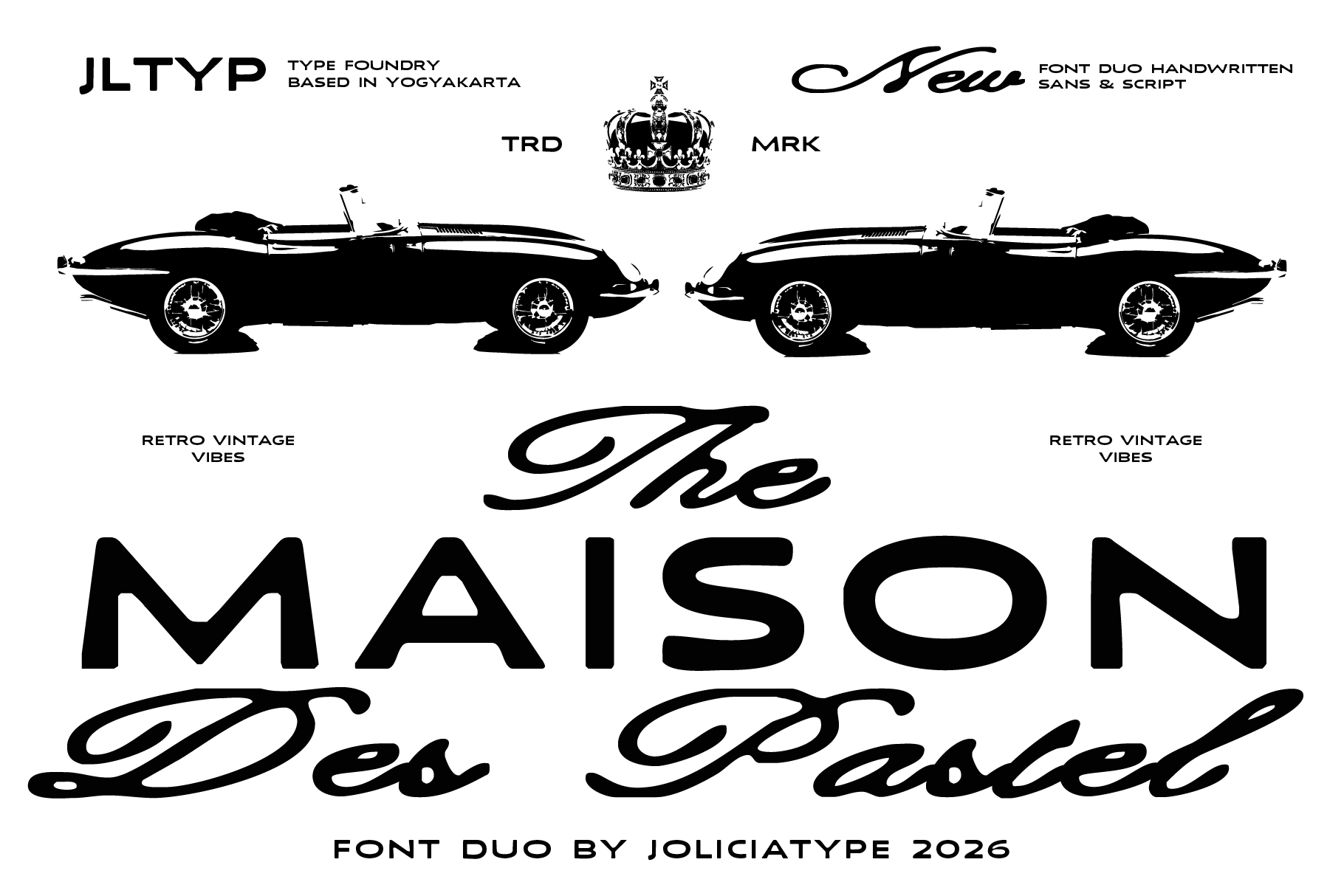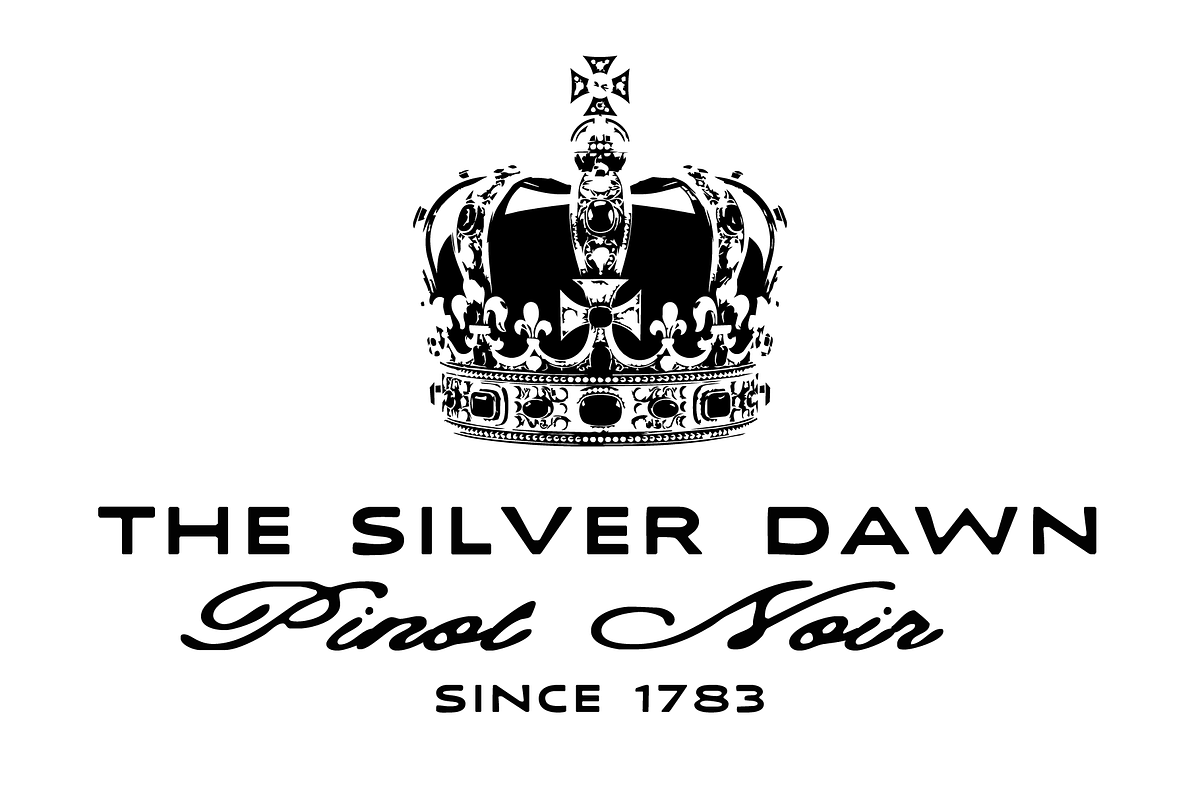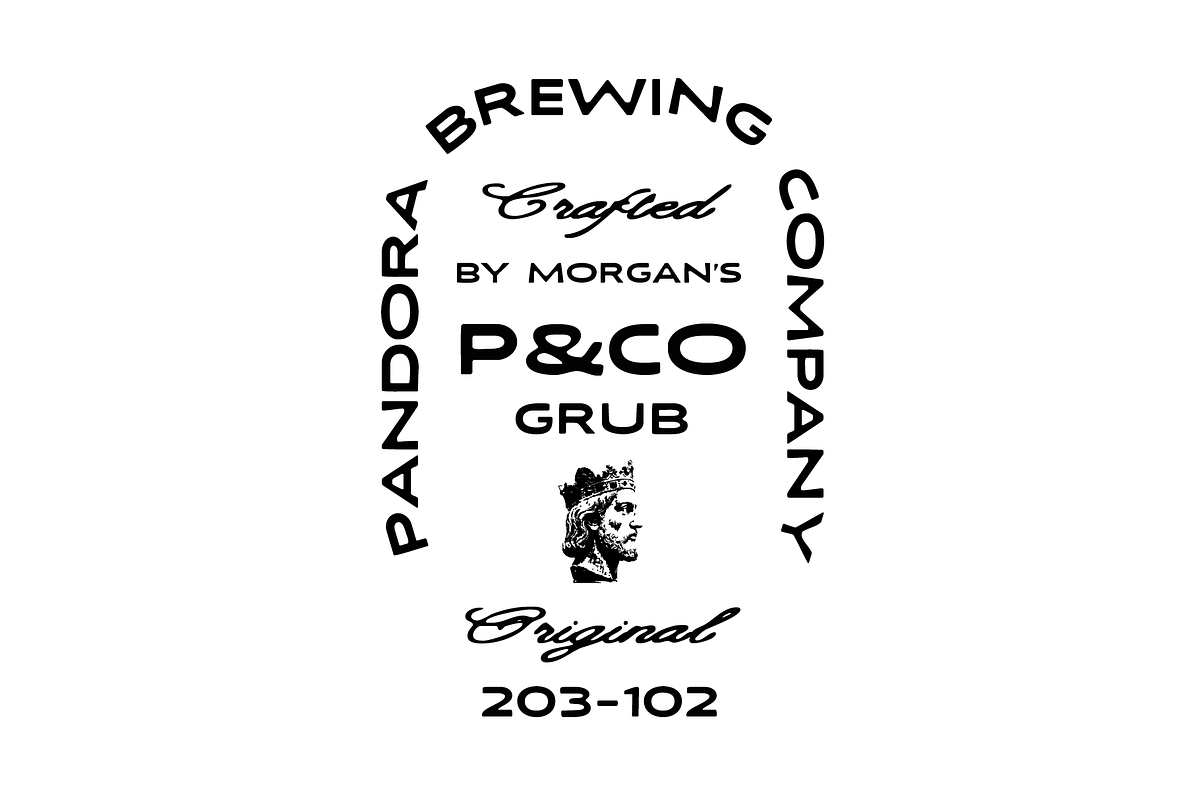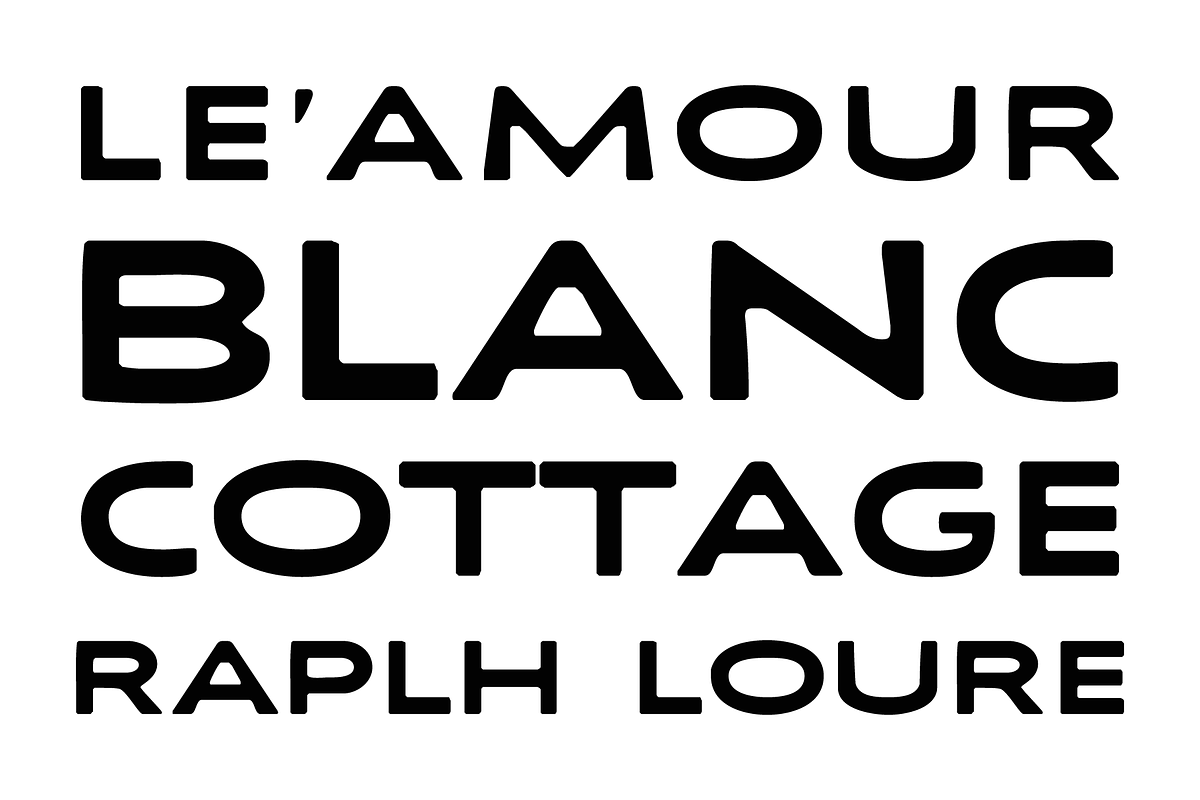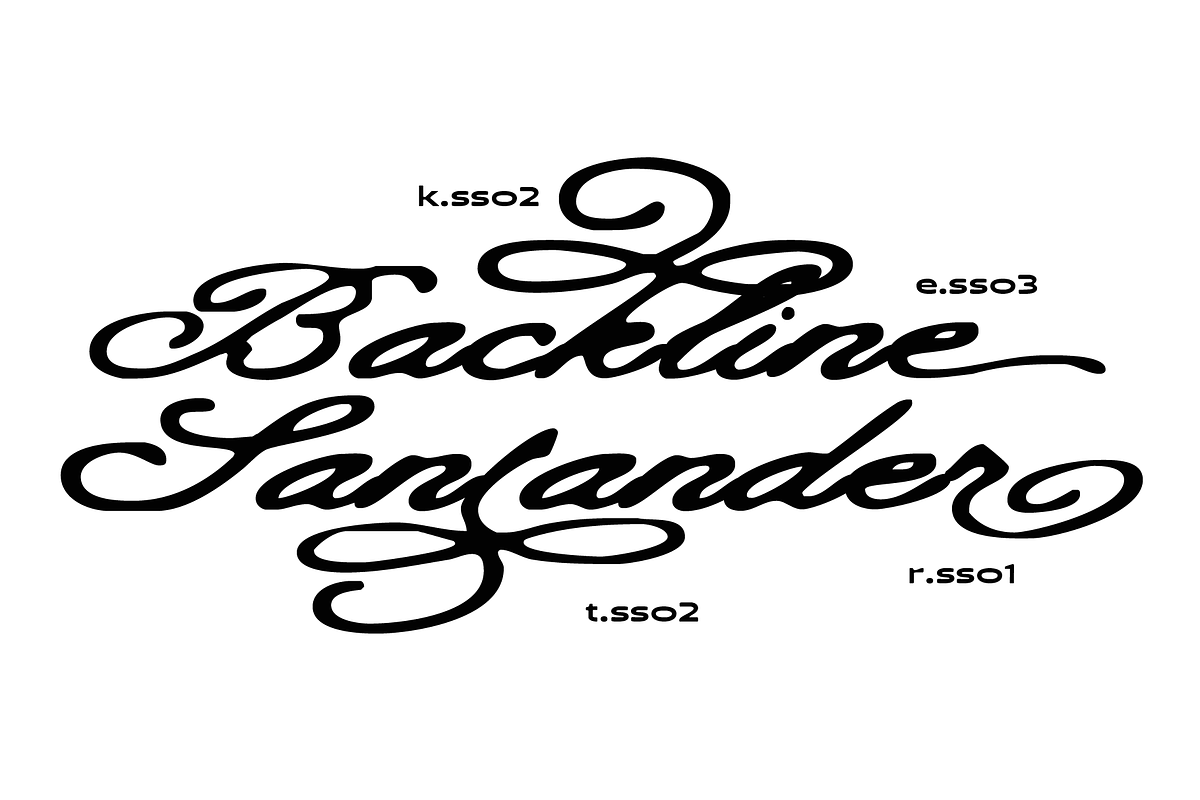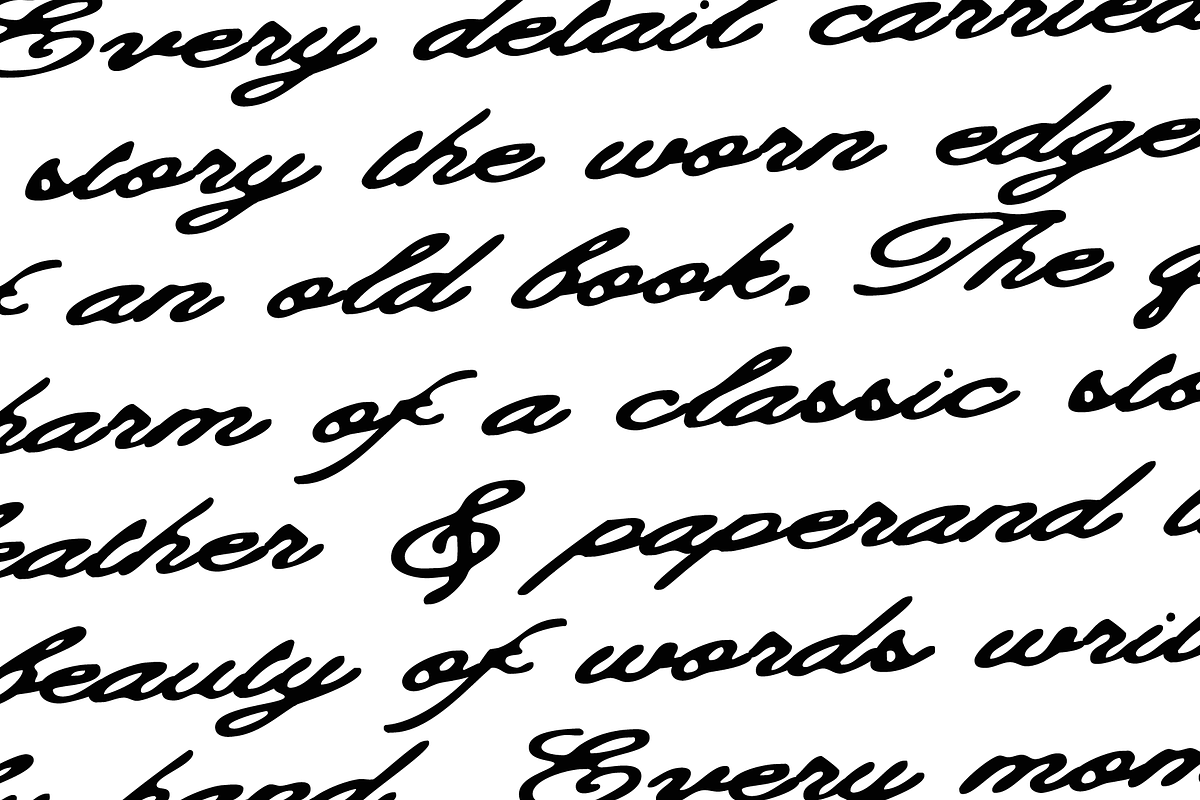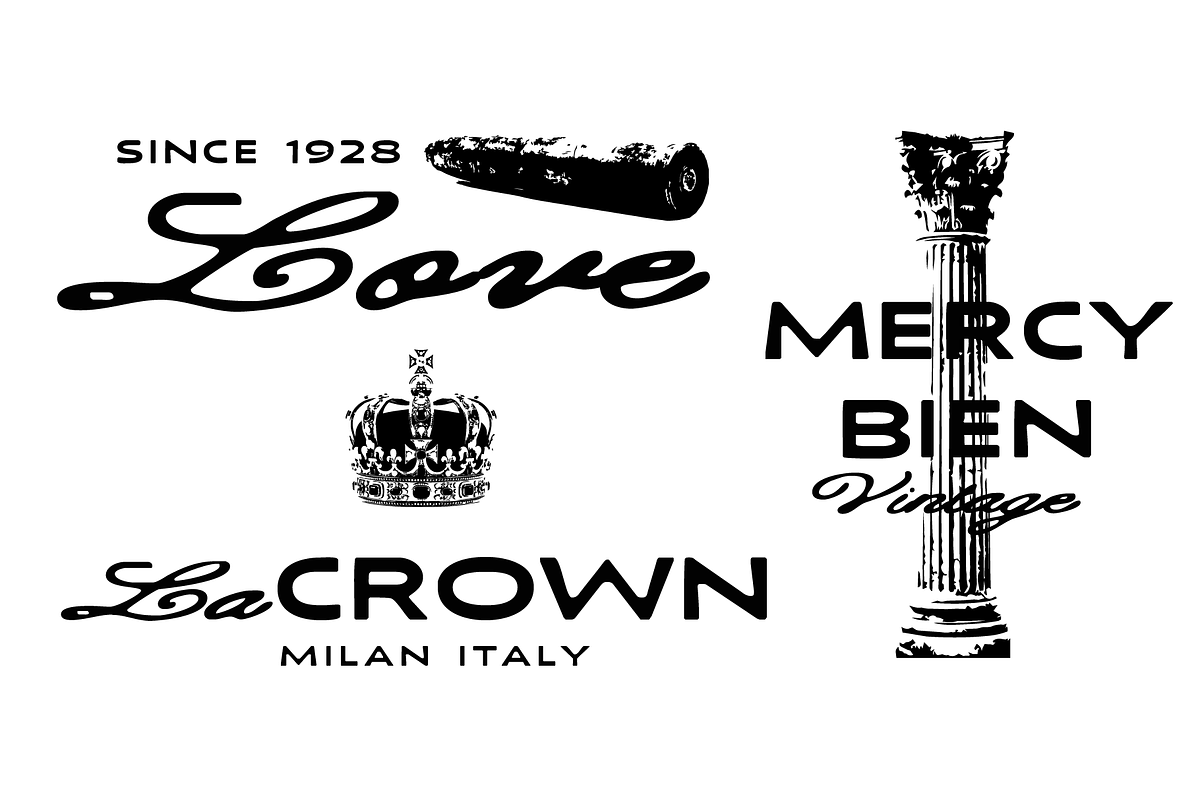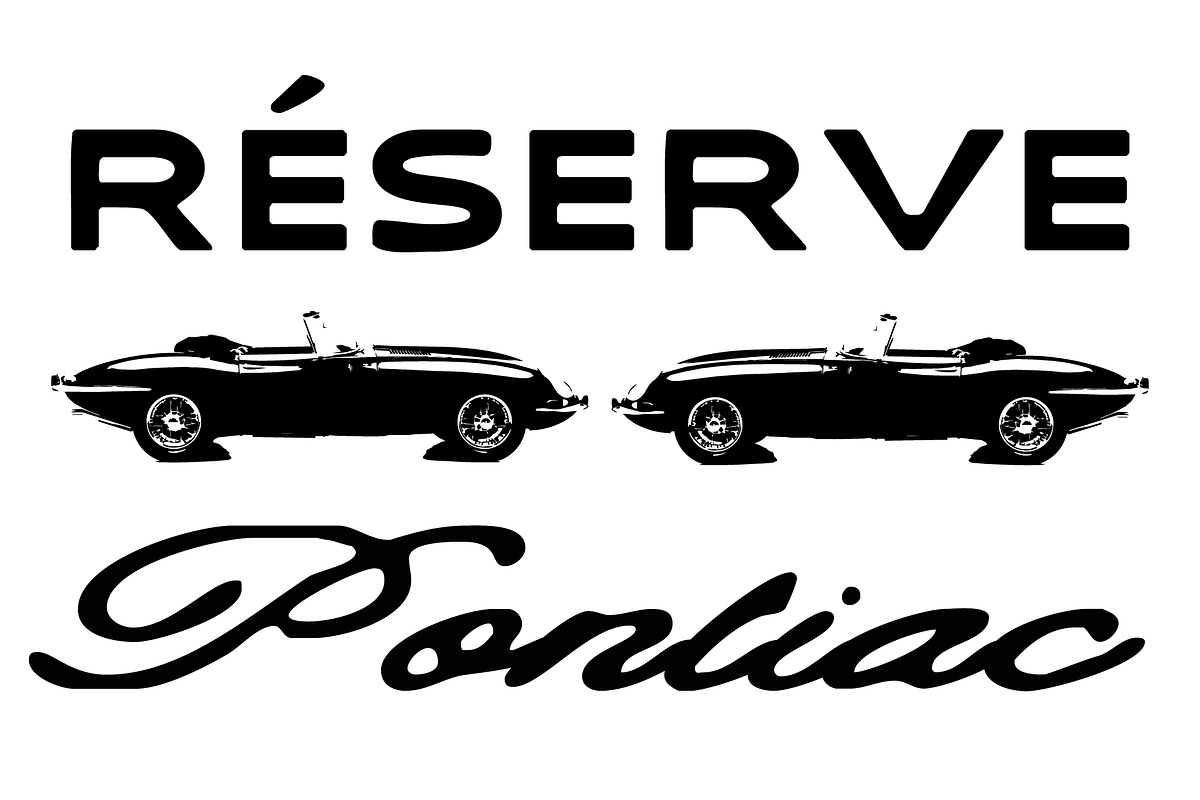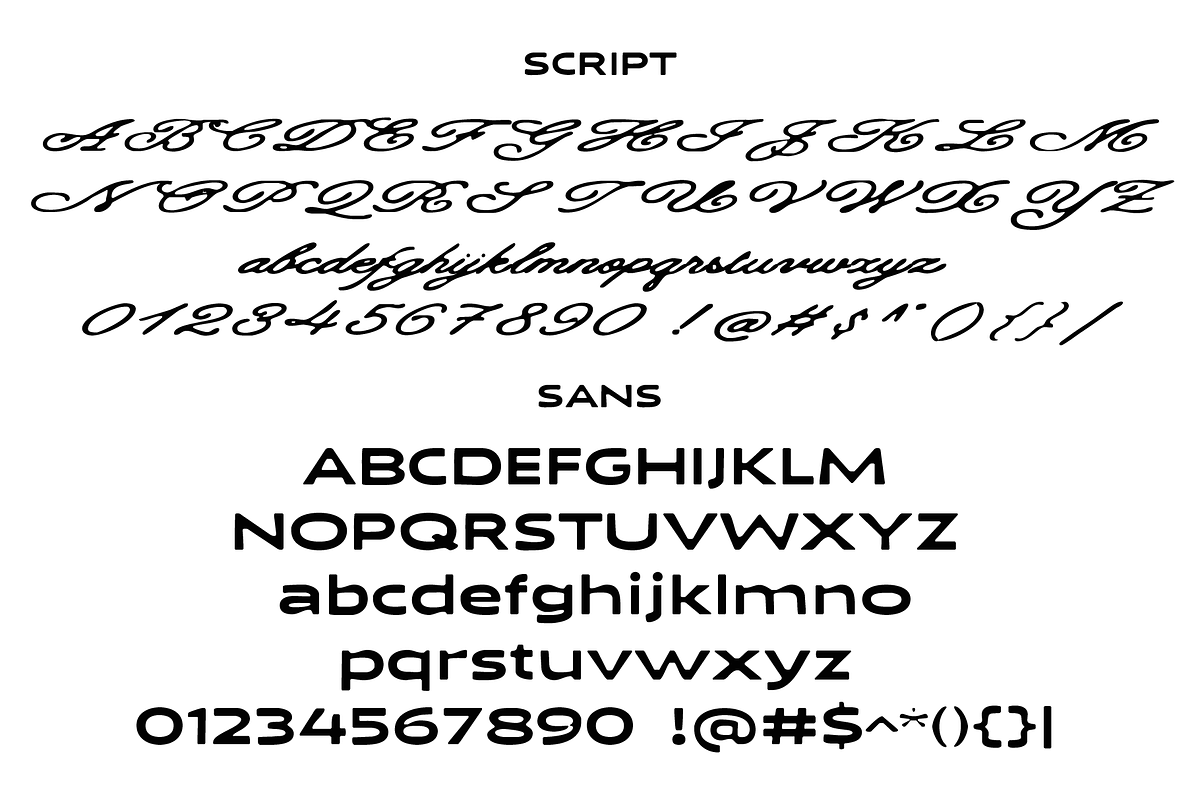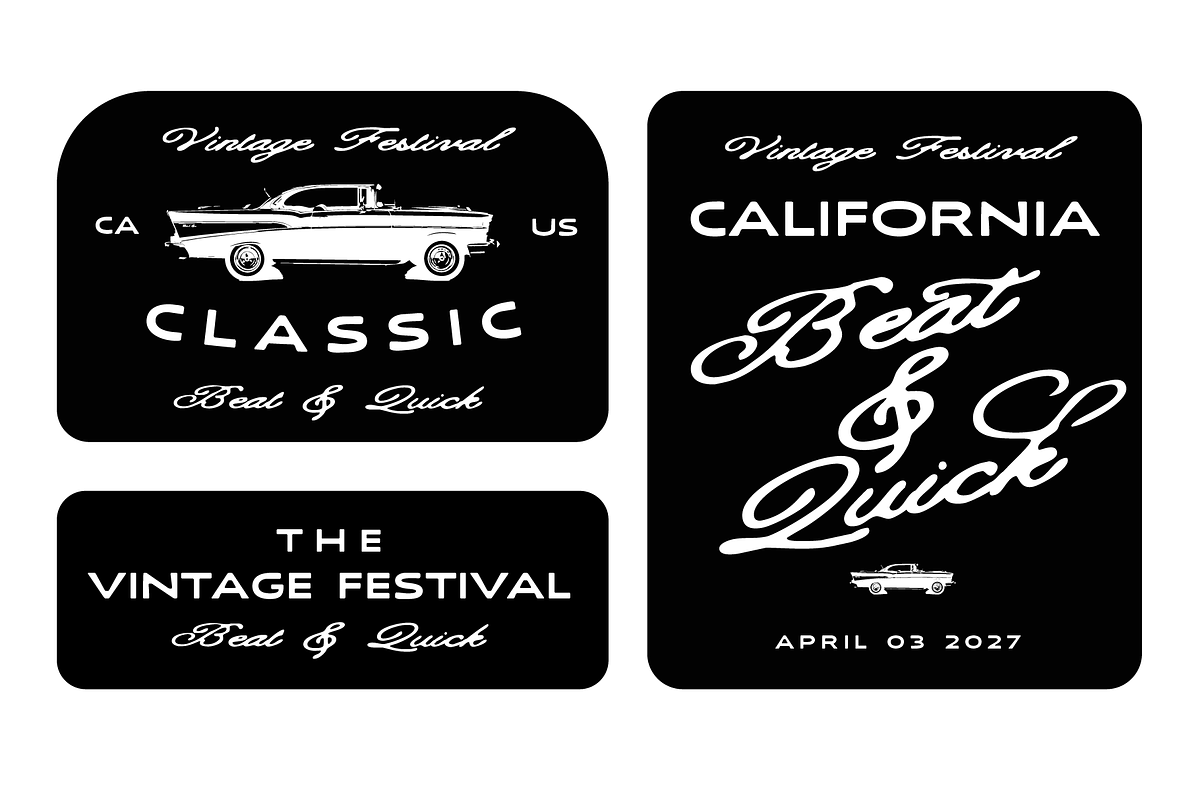
Maison des Pastel | Vintage Font Duo
Maison des Pastel is a stylish vintage font duo that combines a bold sans serif with a rough handwritten script, creating a distinctive contrast between clean structure and expressive character. The sans serif brings a strong, modern-retro presence, while the handwritten script adds an authentic, spontaneous feel with its organic strokes and imperfect edges.
Inspired by retro typography, classic automotive culture, vintage advertising, and nostalgic graphic design, Maison des Pastel feels effortlessly cool, playful, and full of personality. The combination of both styles makes it easy to create dynamic typography with a handcrafted vintage attitude.
Maison des Pastel is perfect for branding, logos, apparel, posters, packaging, labels, signage, editorial designs, album artwork, badges, and social media graphics. Use the sans serif for bold headlines and statements, then pair it with the rough script for accents, signatures, or expressive details.
With its contrasting personalities, Maison des Pastel gives your designs a nostalgic yet contemporary character rough around the edges, confident, and unmistakably vintage.